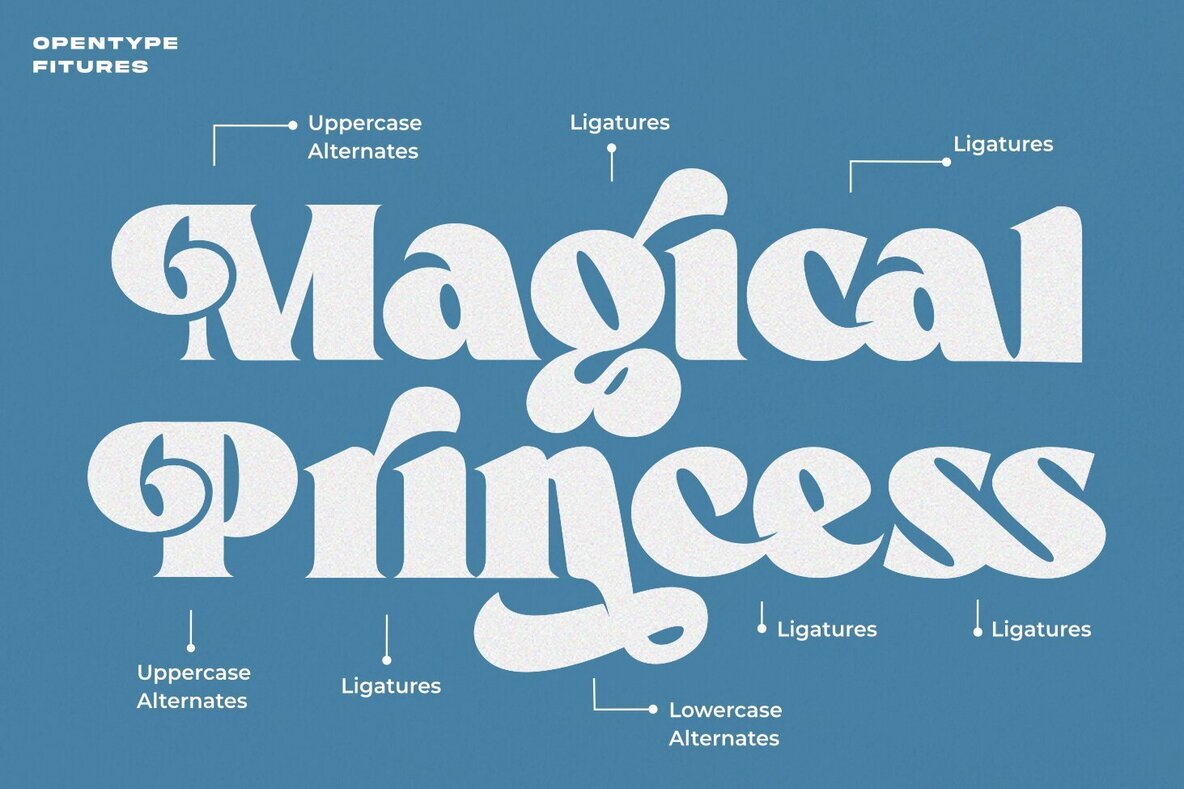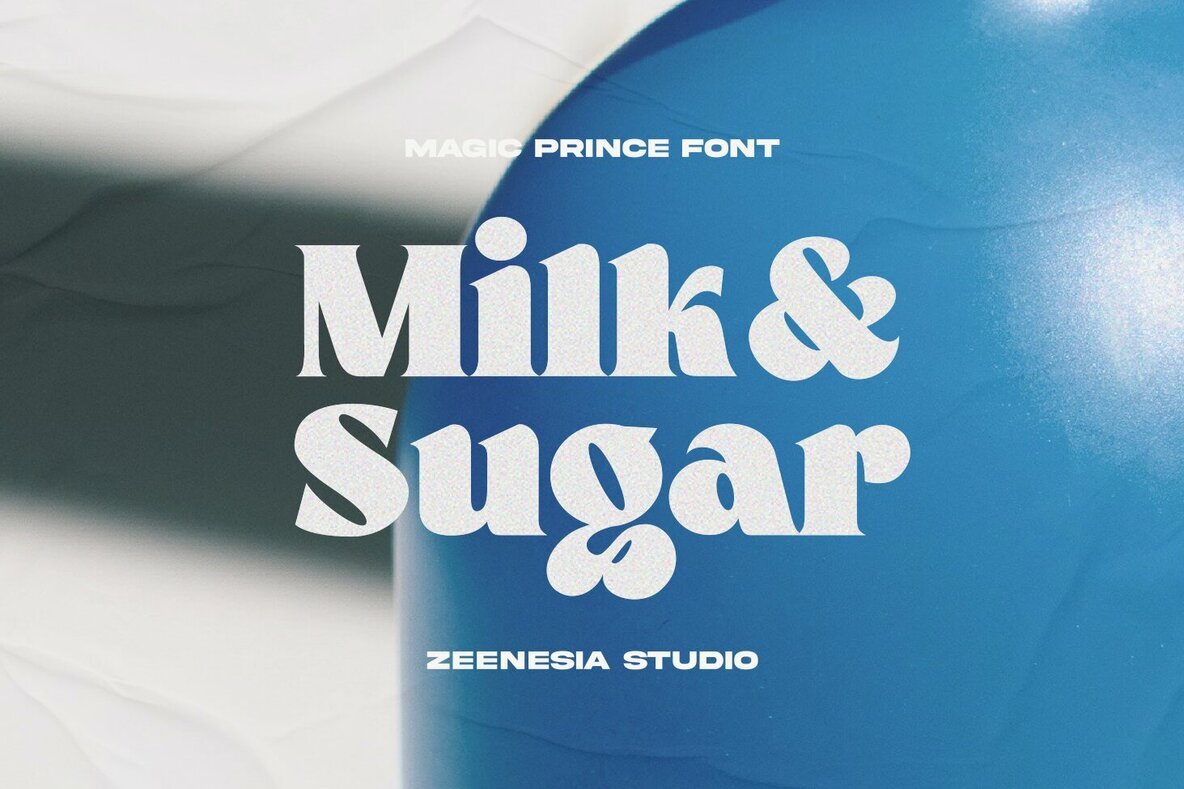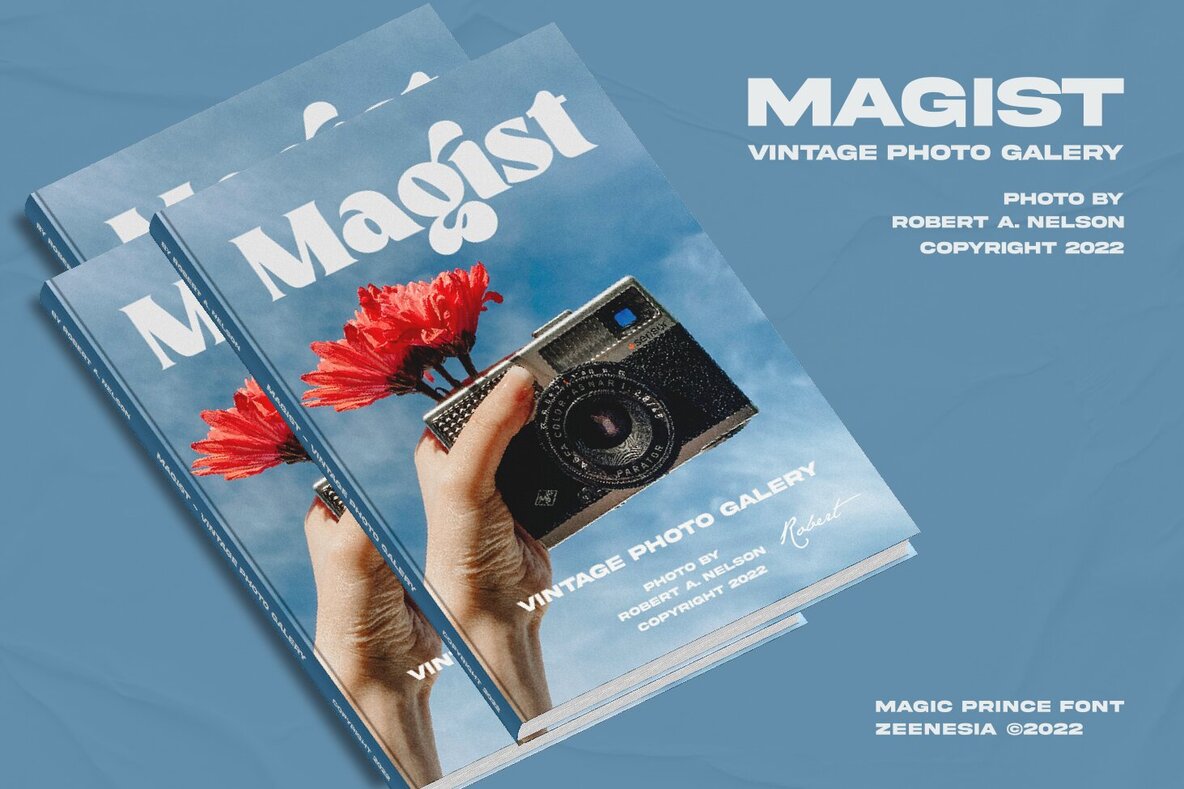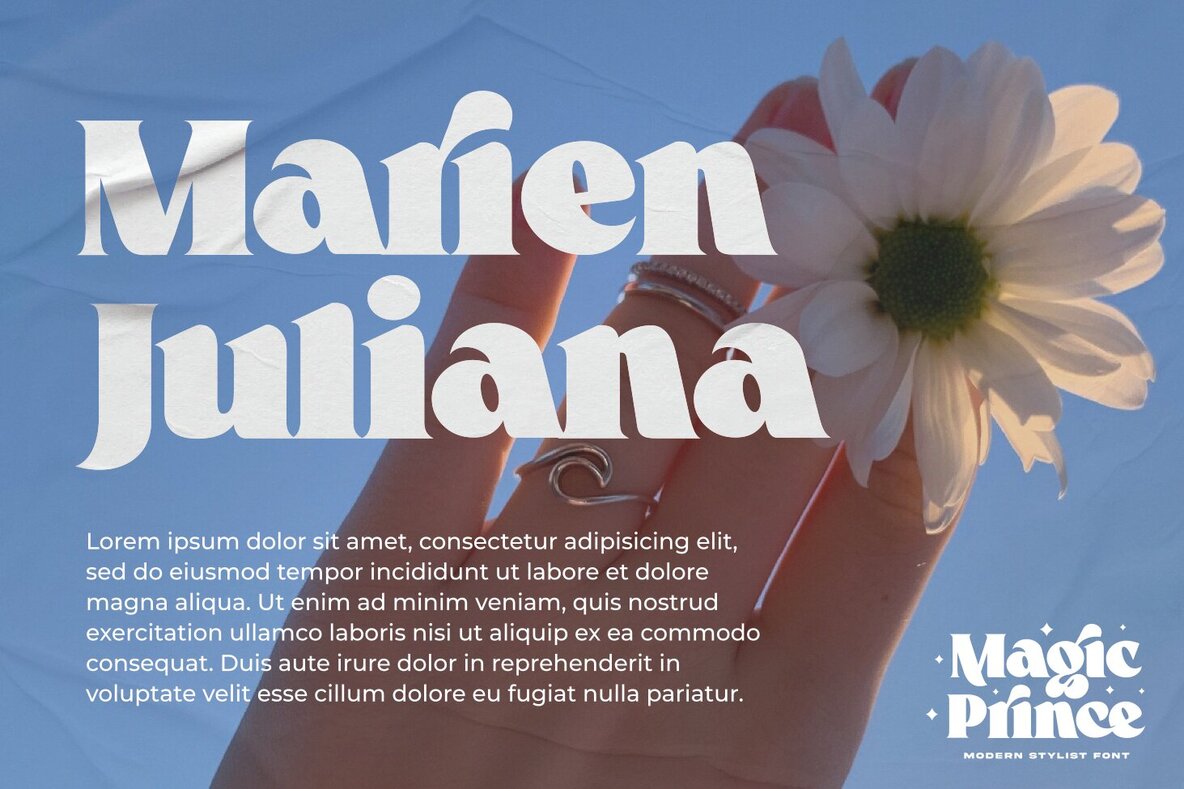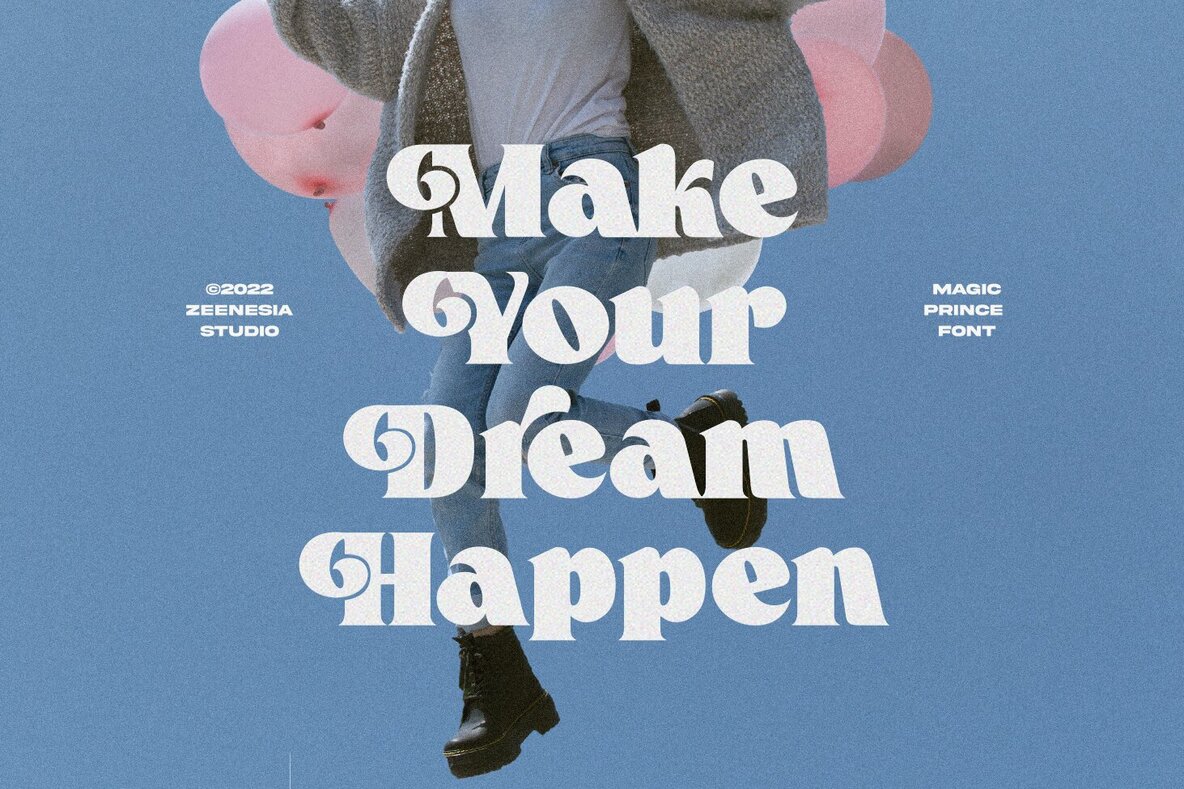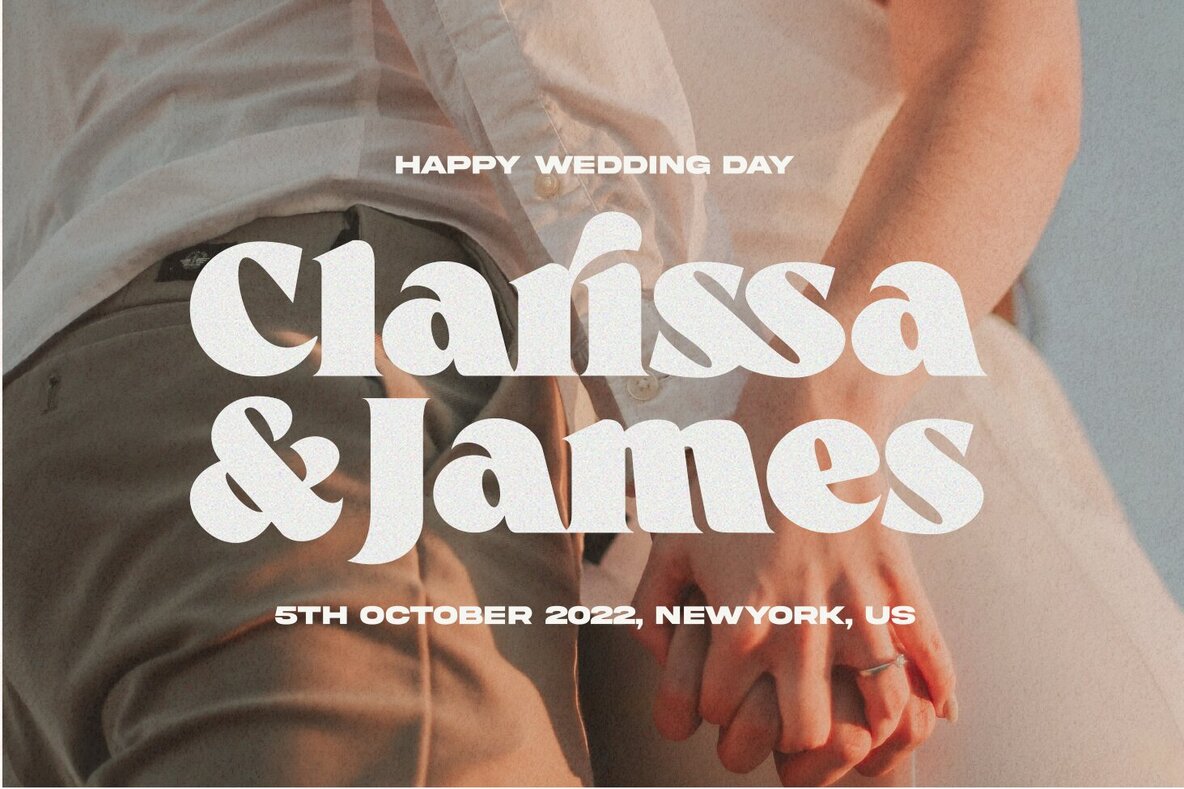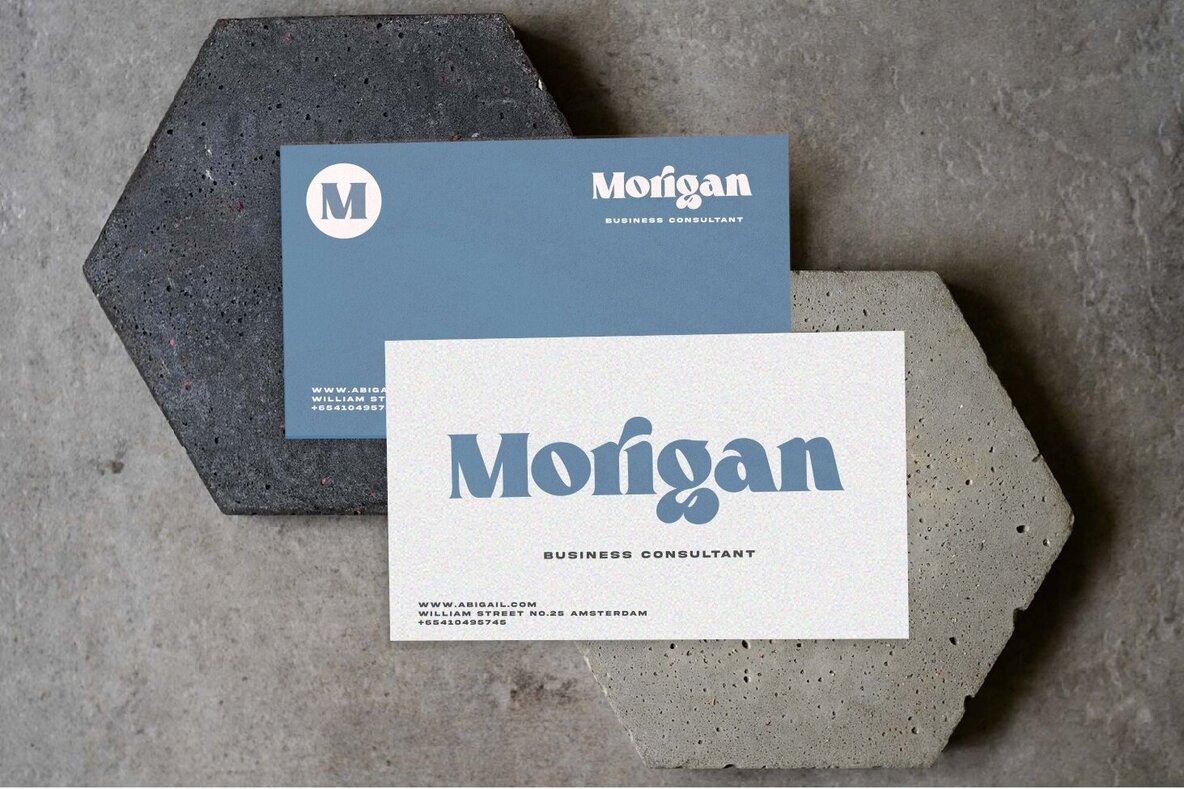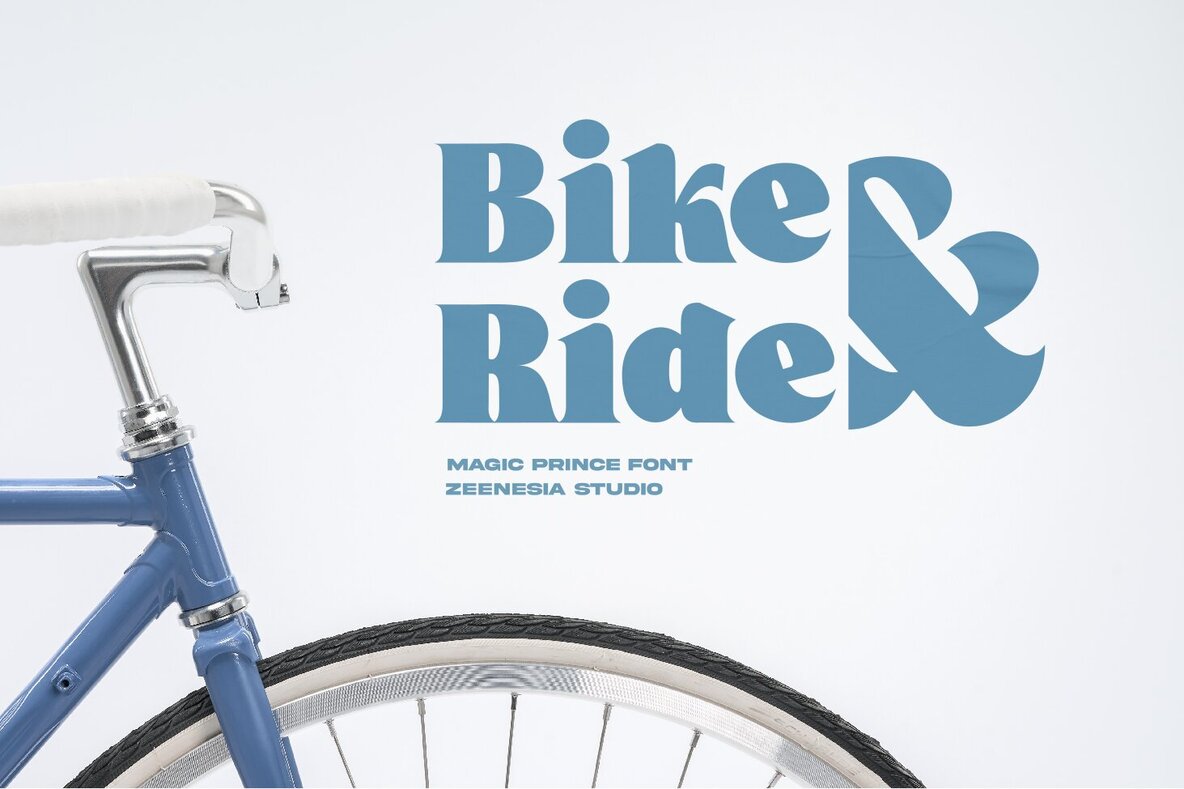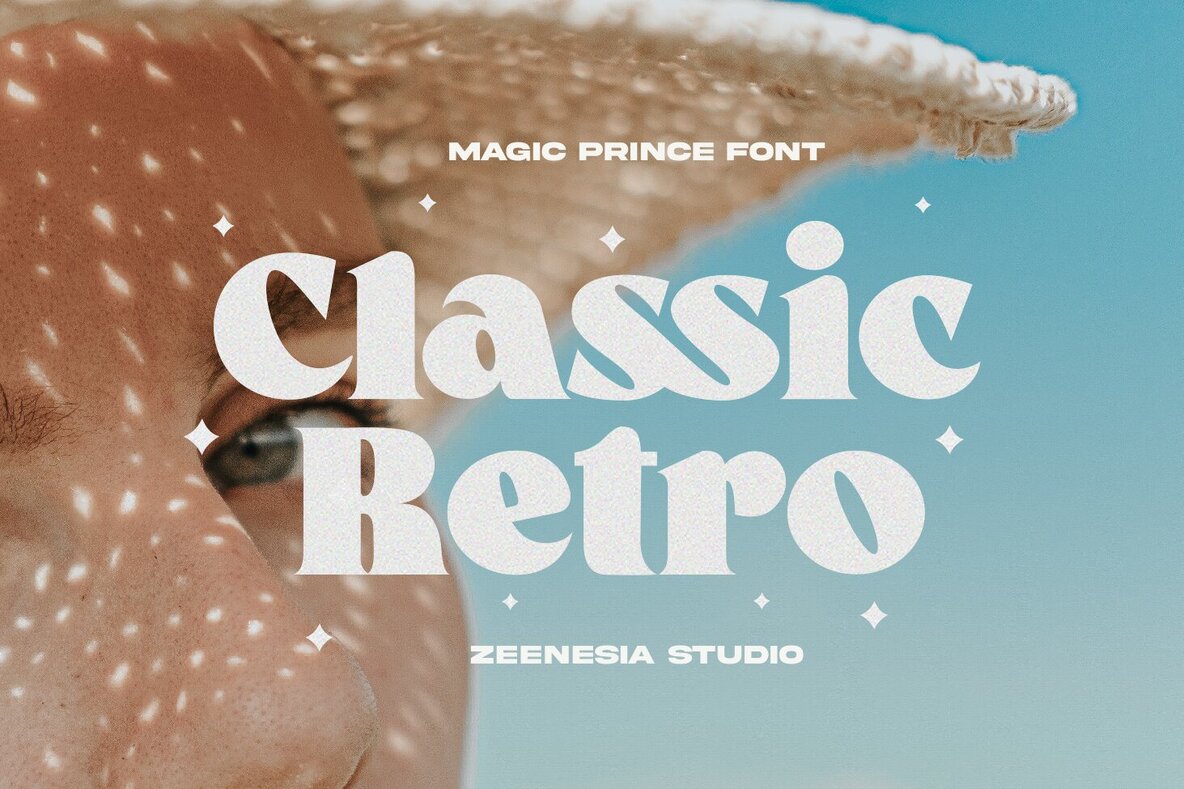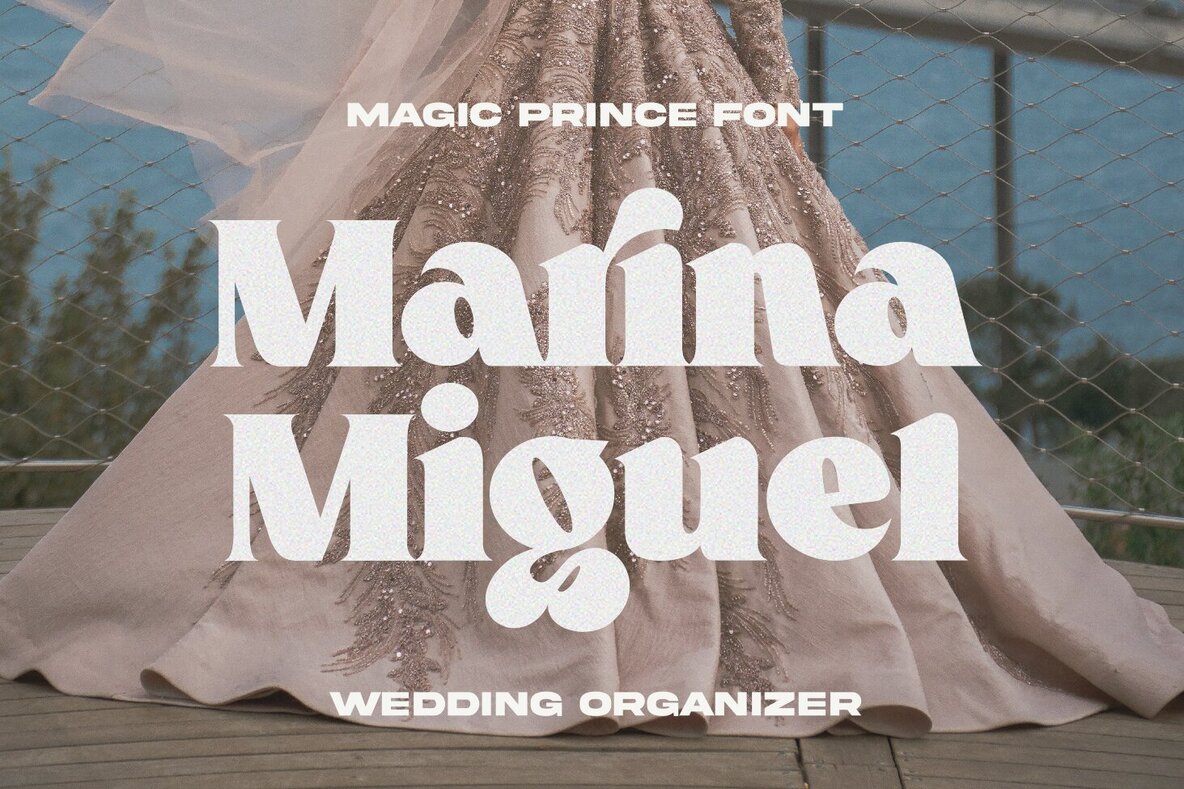
Magic Prince Font
Magic Prince Regular
Magic Prince is a cool, retro-style display font that has been masterfully crafted to become a true favorite. Offering a contemporary and fresh appeal, it is perfect for a variety of design projects. Enhance your creative efforts with Magic Prince and make your designs truly outstanding! This font is PUA encoded, allowing easy access to all glyphs and ligatures.Magic Prince: Retro-Style Display Font